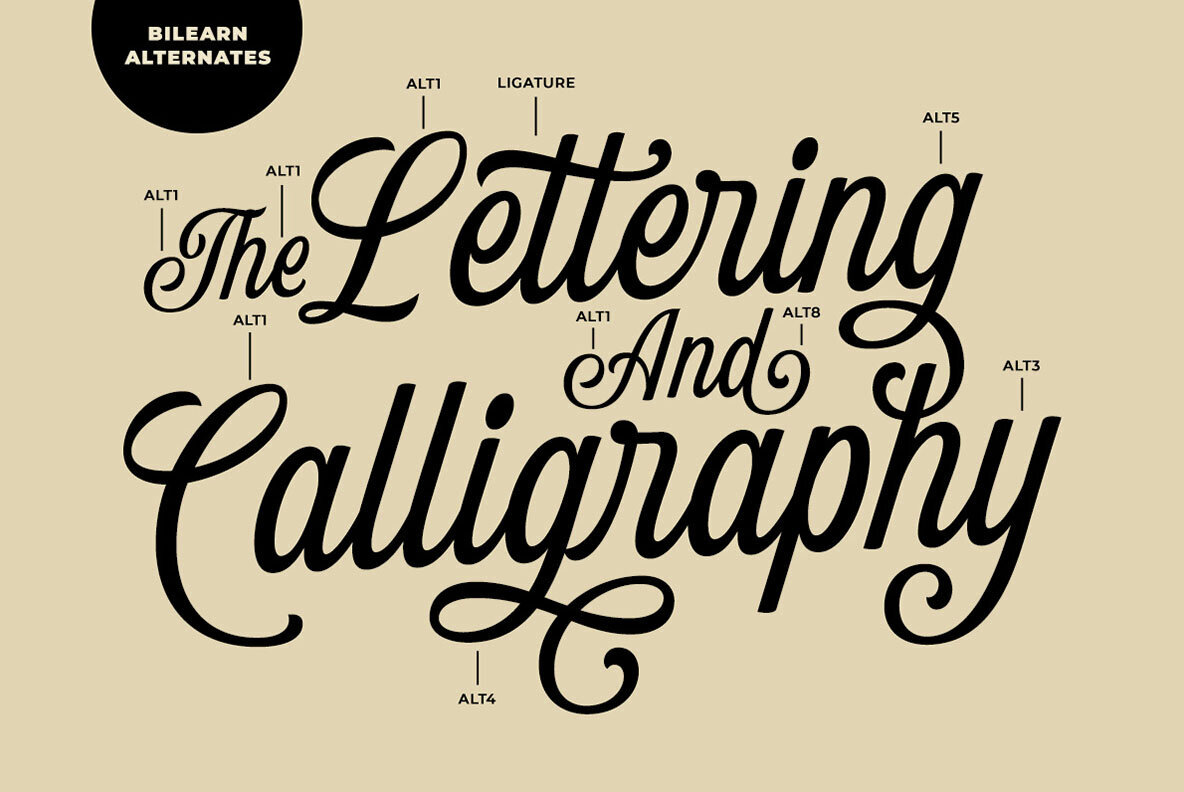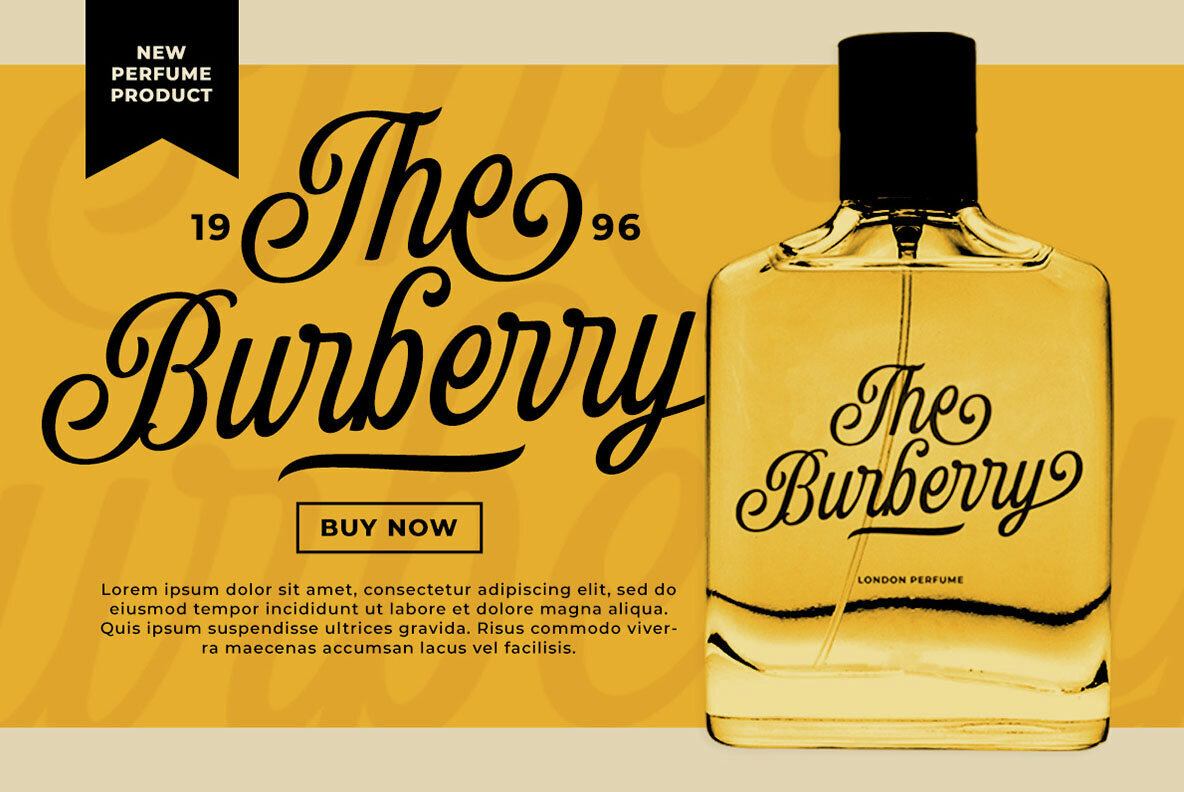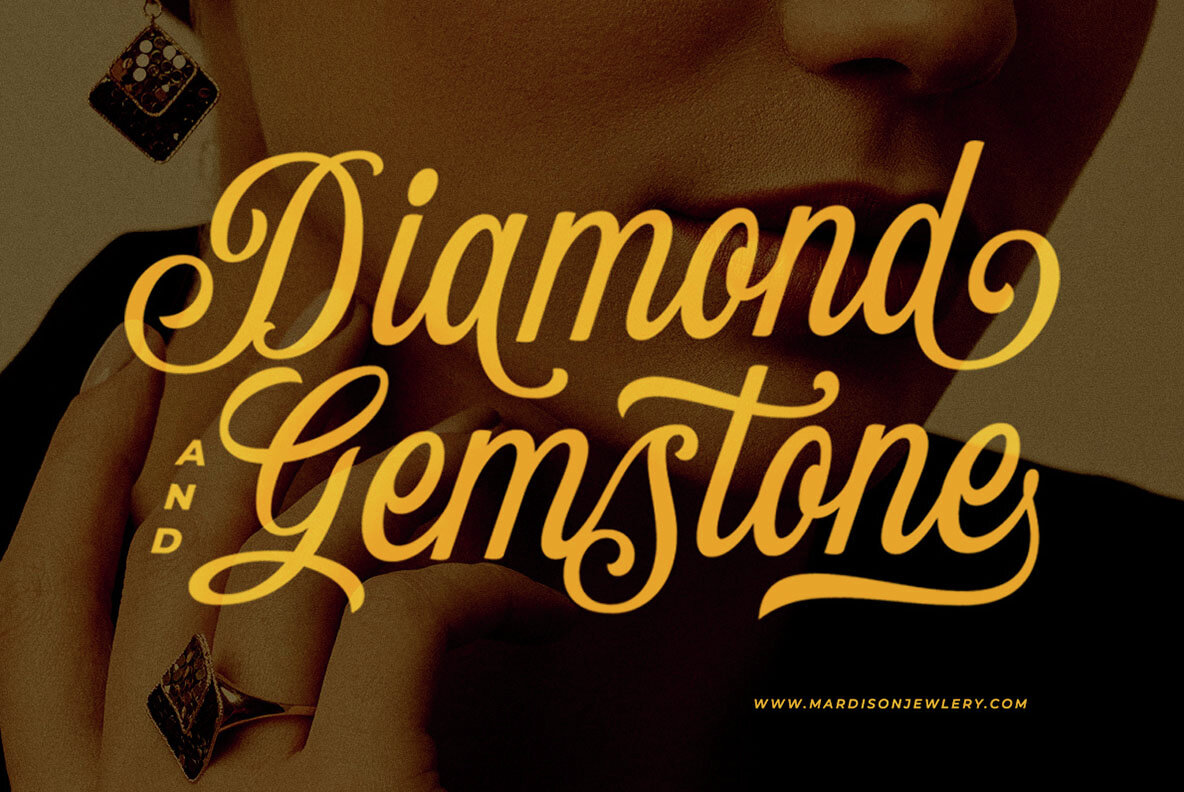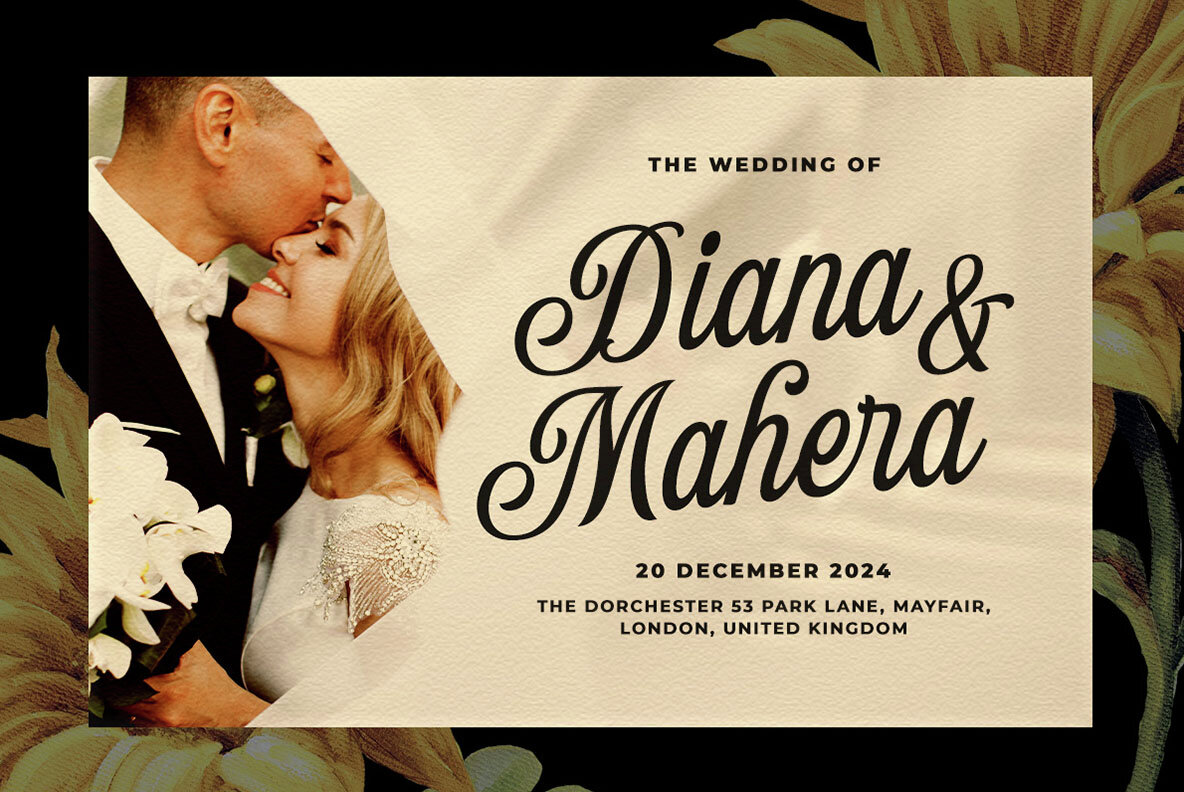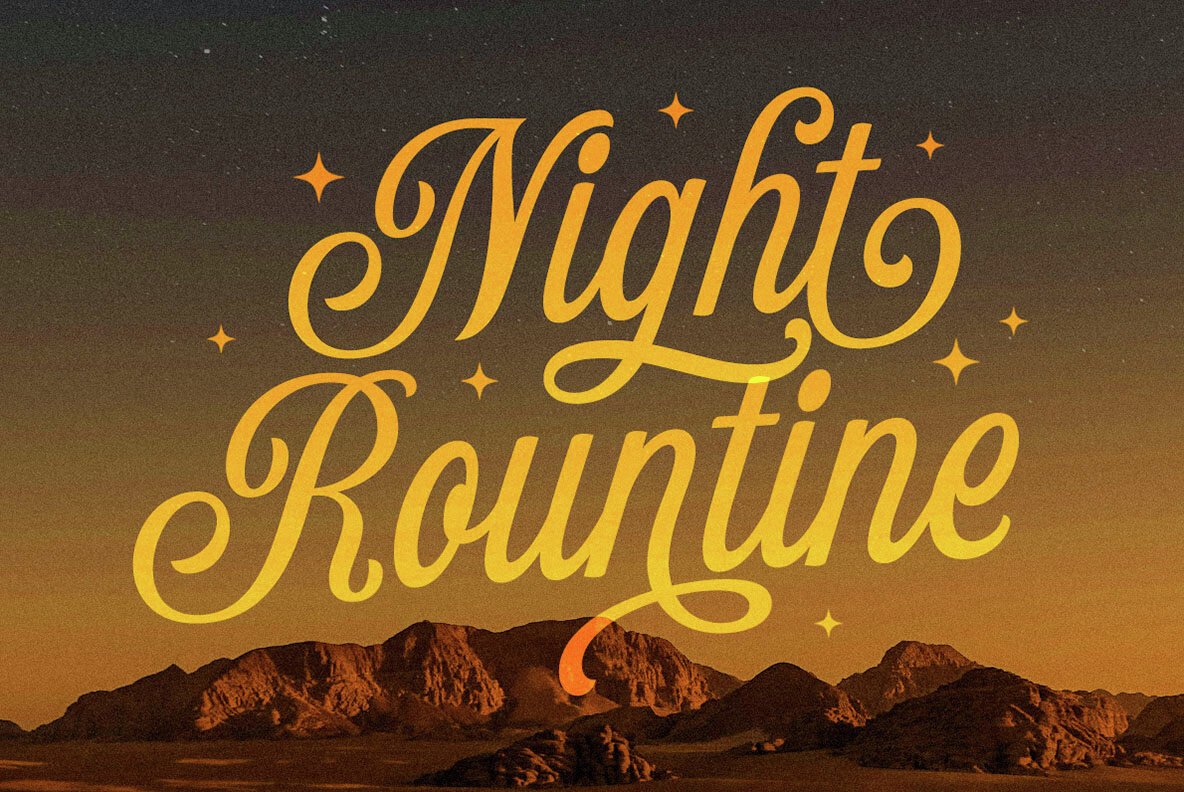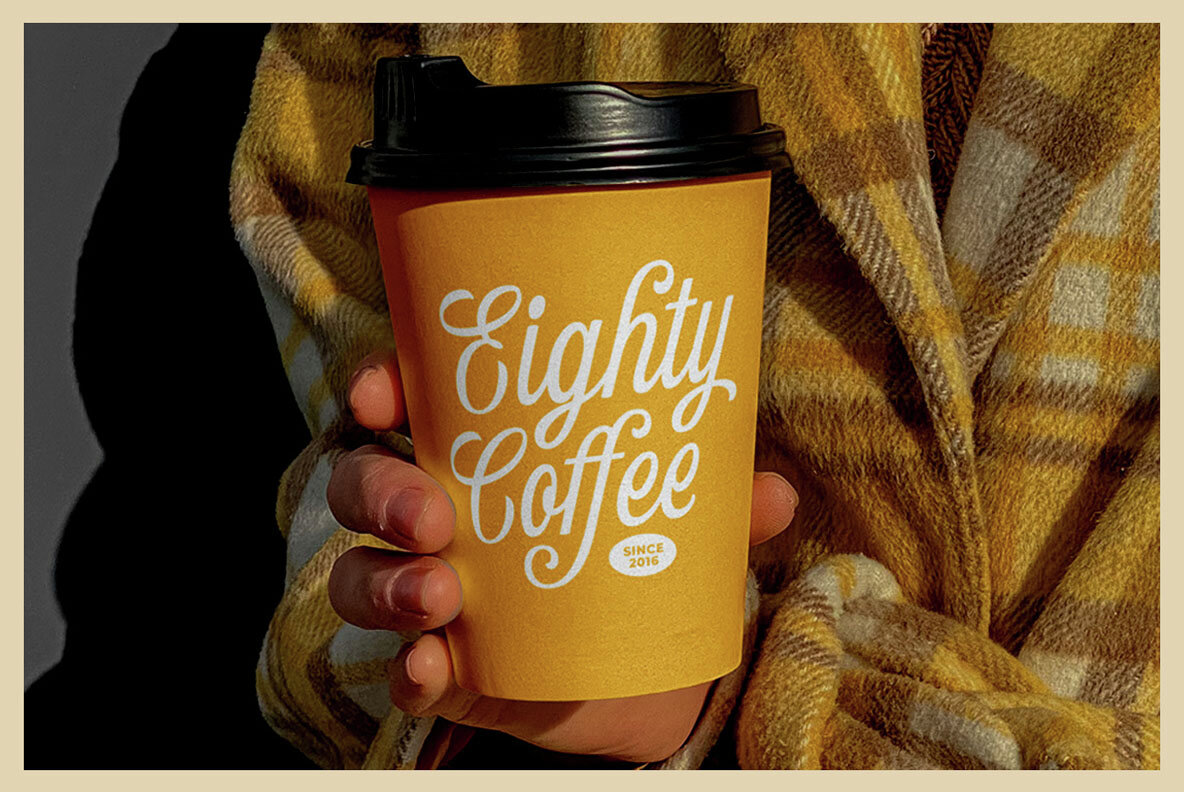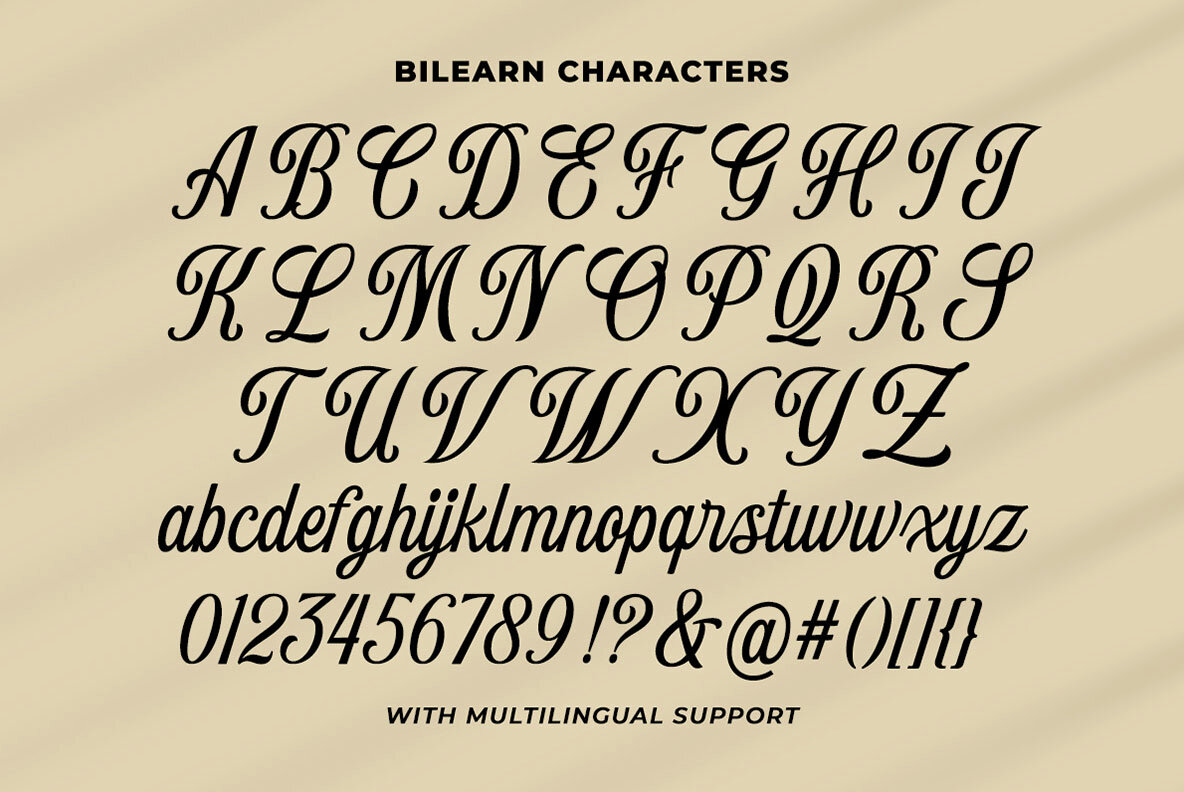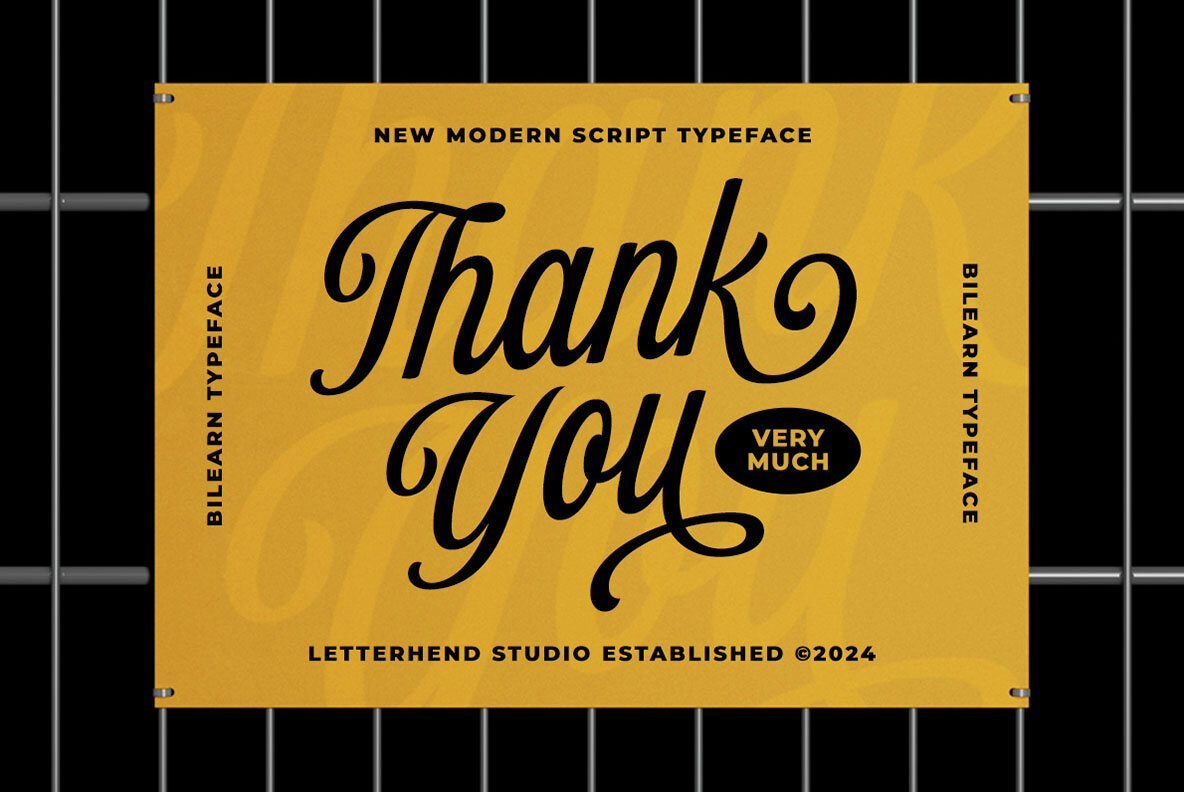
Bilearn Font
Bilearn Regular
Bilearn Script is a modern script typeface designed with distinct alternates and swashes, making it an excellent choice for a variety of formal applications. Its elegant design is ideal for logos, invitations, labels, and advertising materials. Whether you're working on magazines, books, wedding cards, or fashion projects, Bilearn Script provides versatility and style.
This typeface offers a comprehensive set of features, including uppercase and lowercase letters, numbers, punctuation, and alternate characters. It also supports multilingual use and comes PUA encoded, ensuring you have the tools to create visually striking designs. Bilearn Script is perfect for those looking to integrate a refined, sophisticated script into their work.